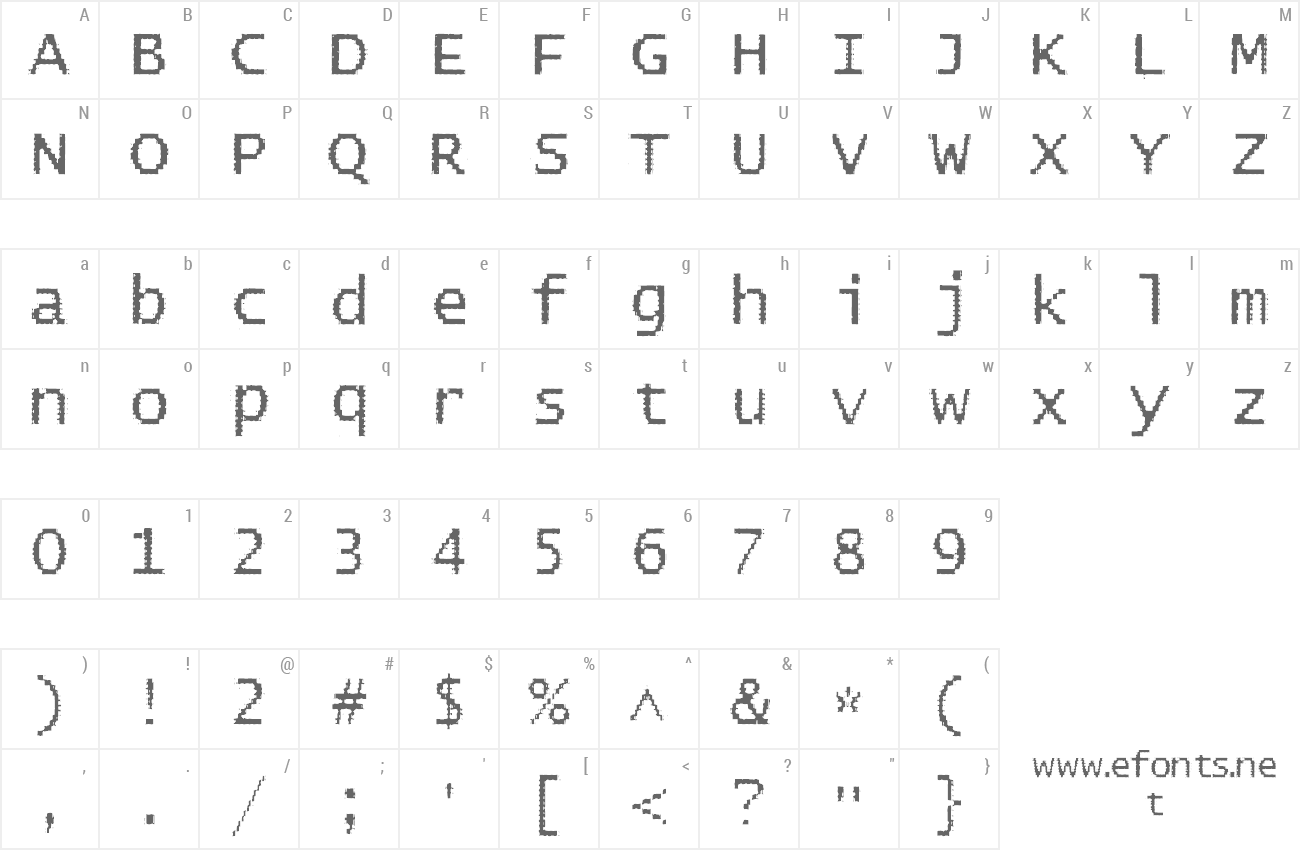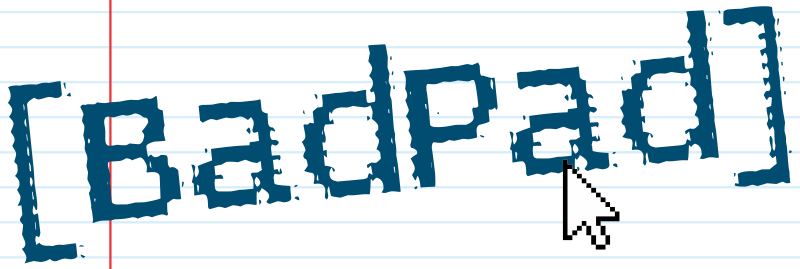
| Font name: | BadPad Distressed |
| Author: | Phelan Riessen |
| Note by Phelan Riessen | |
| The BadPad font is based from the notepad font with an added distressed feel. Enjoy! |